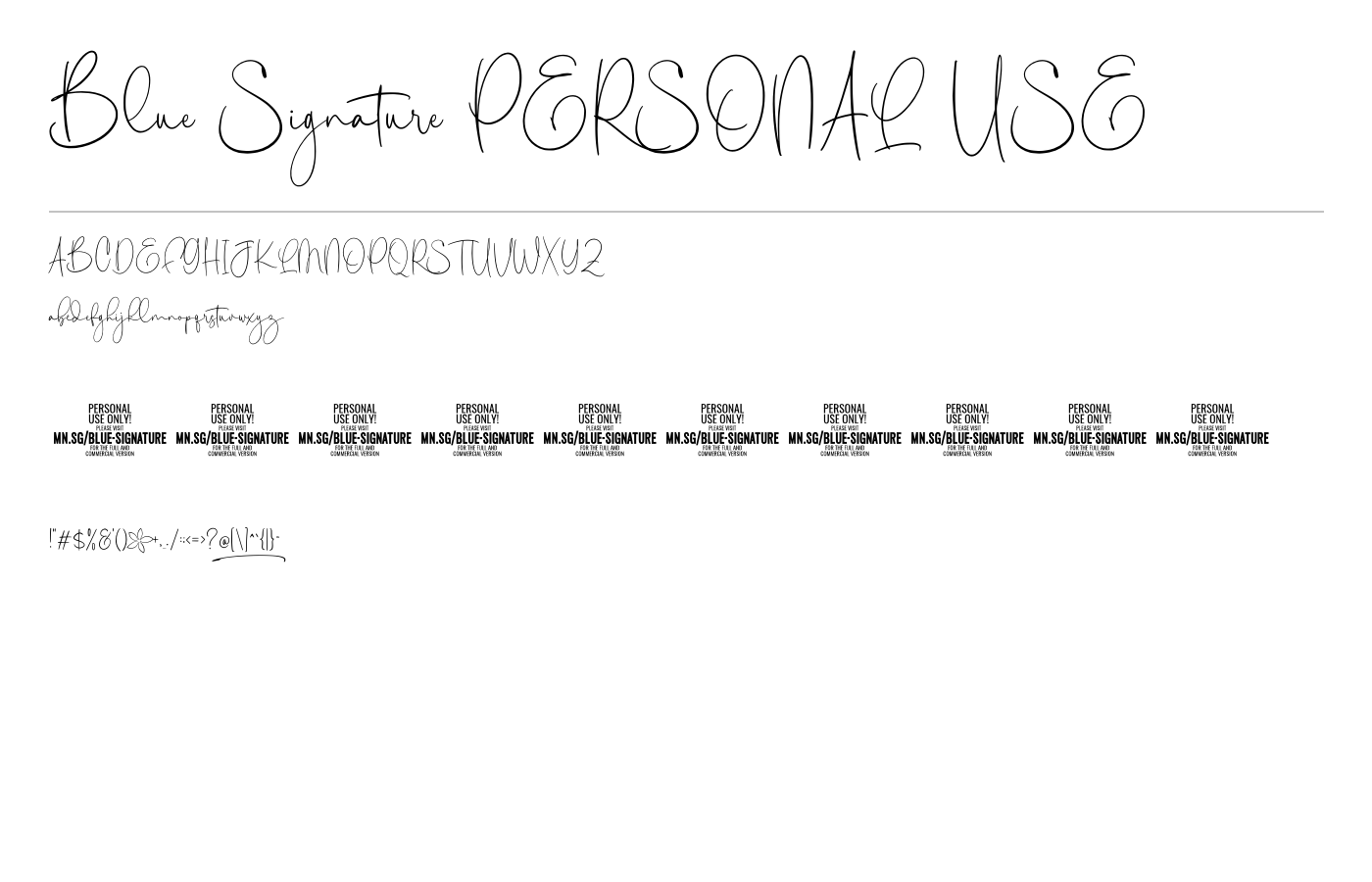
Blue Signature PERSONAL USE is a delicate, handwritten script font with a slim, airy feel and elegant, flowing strokes. Its light weight and tall, narrow letterforms give it a graceful, personal touch perfect for invitations, branding, and creative projects that seek a stylish yet intimate look. This font works well when you want to add a natural, artistic flair with a modern handwritten charm.